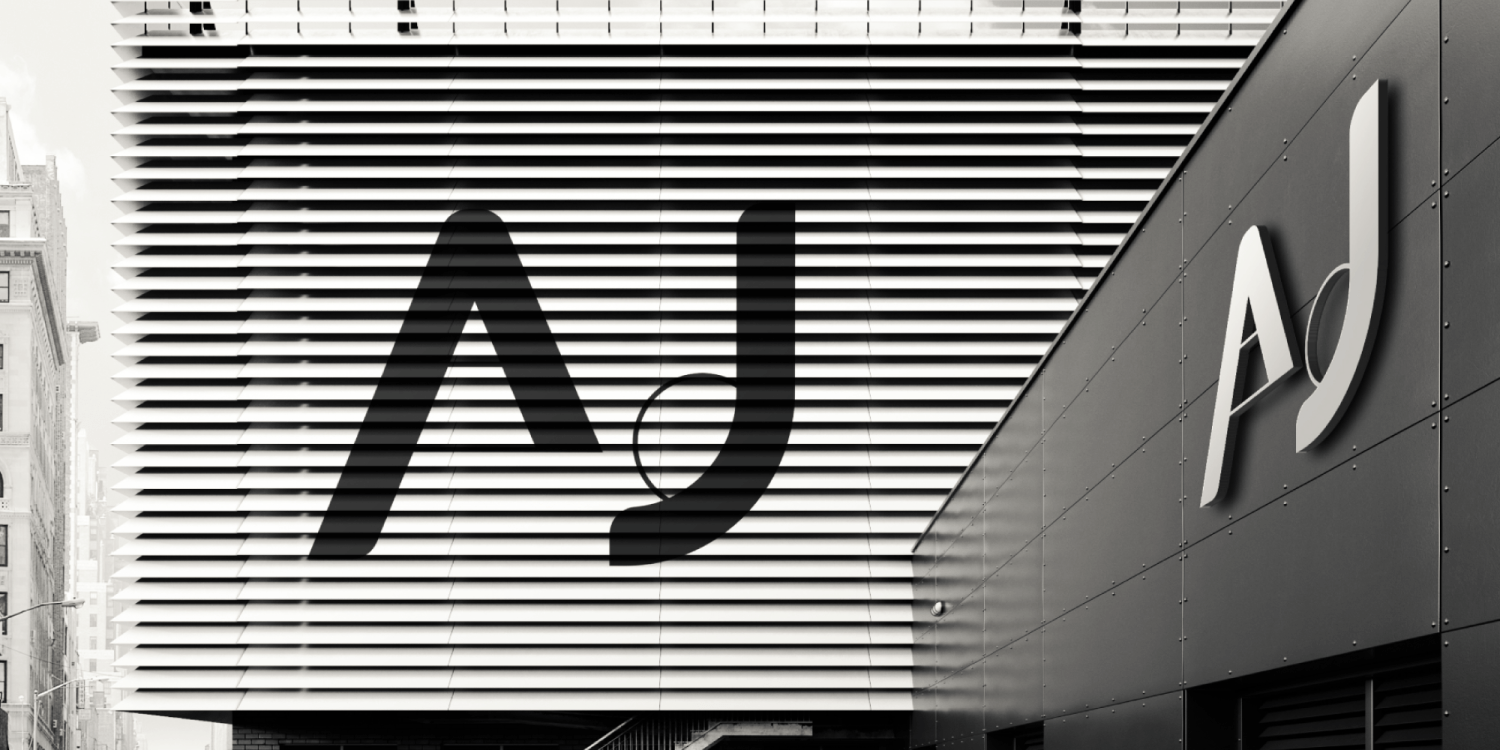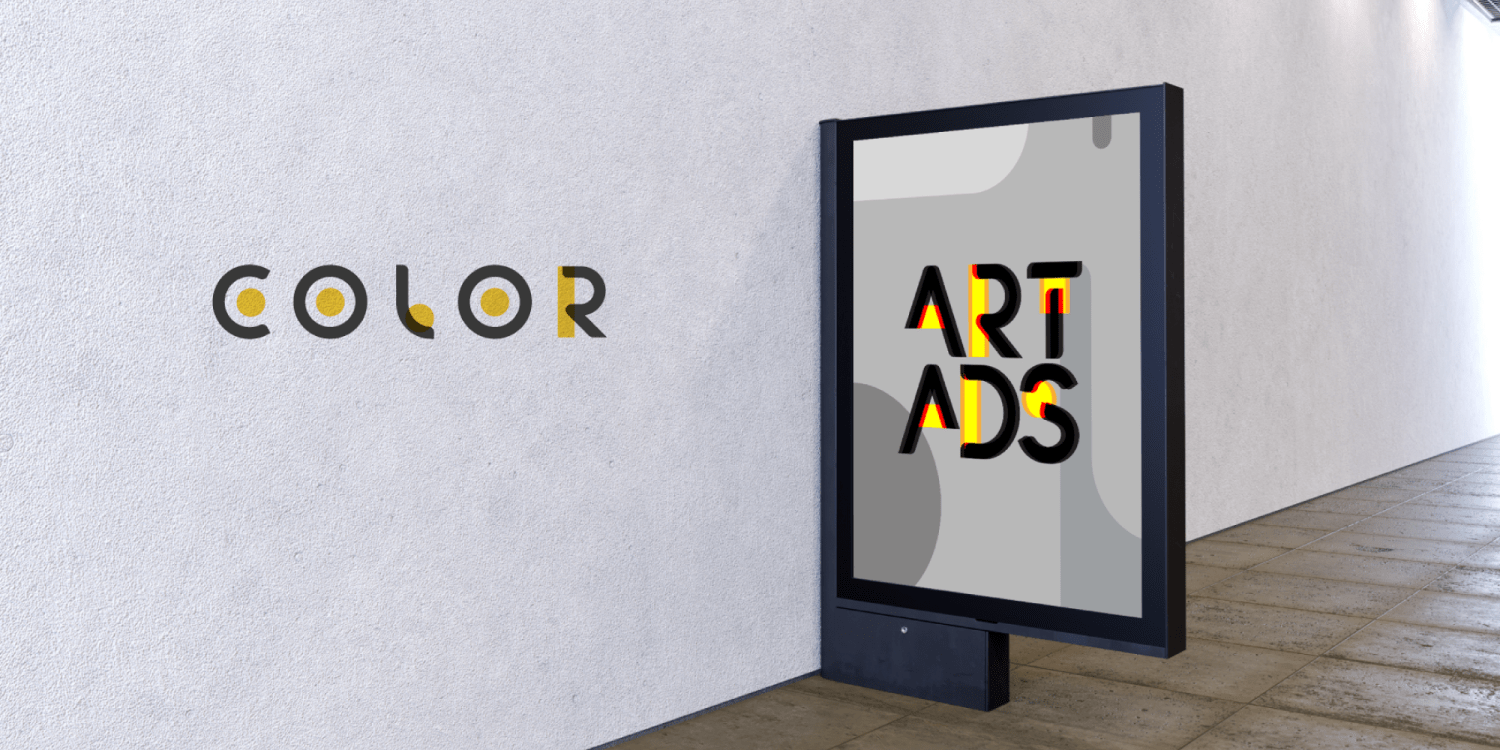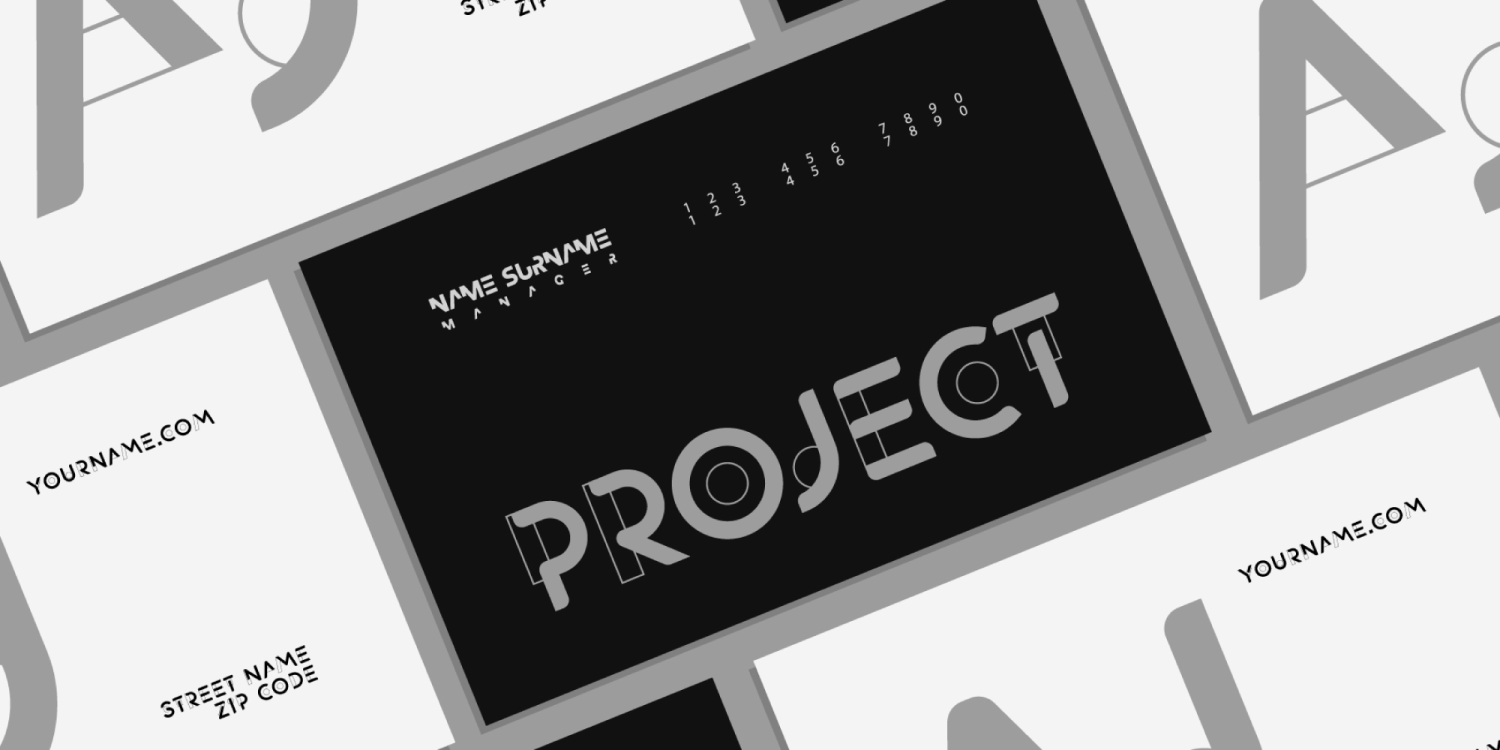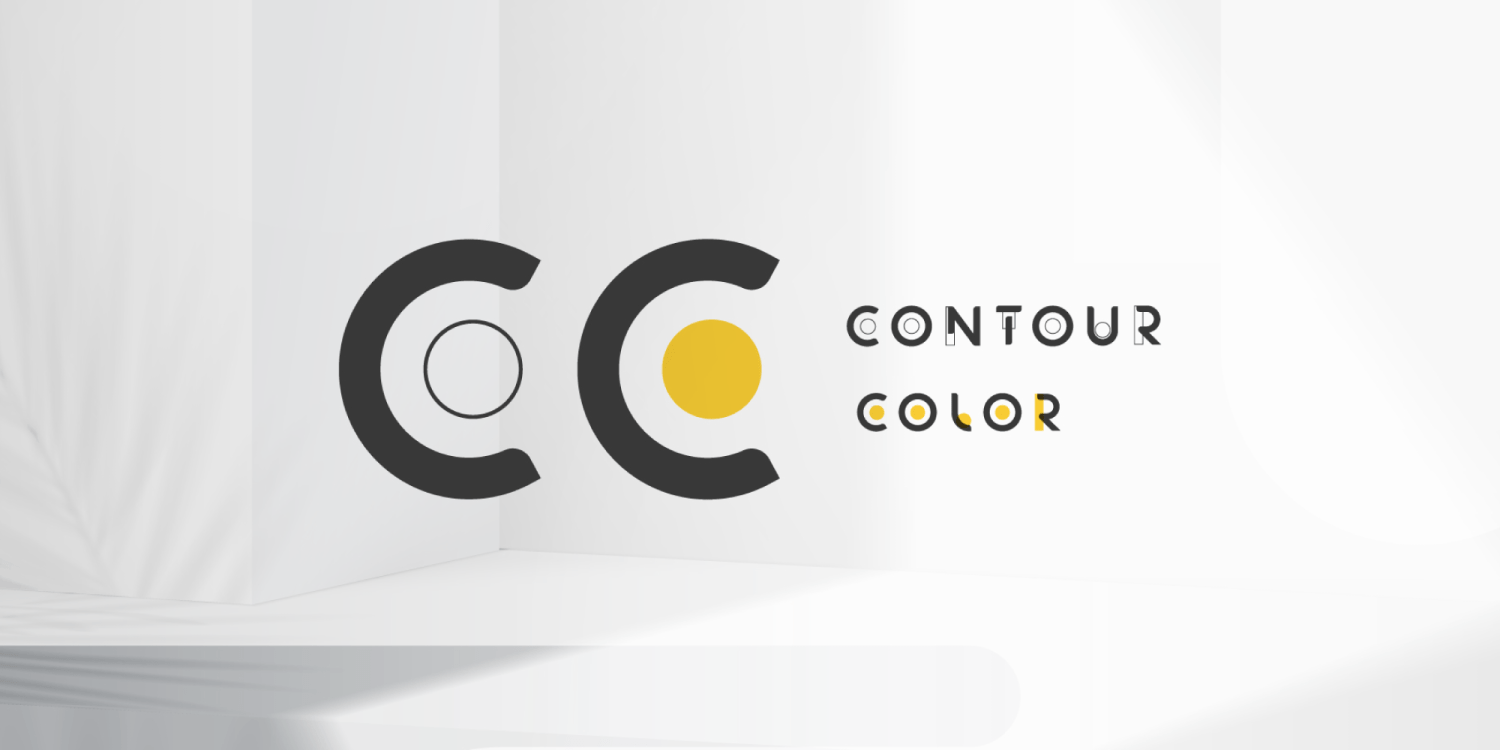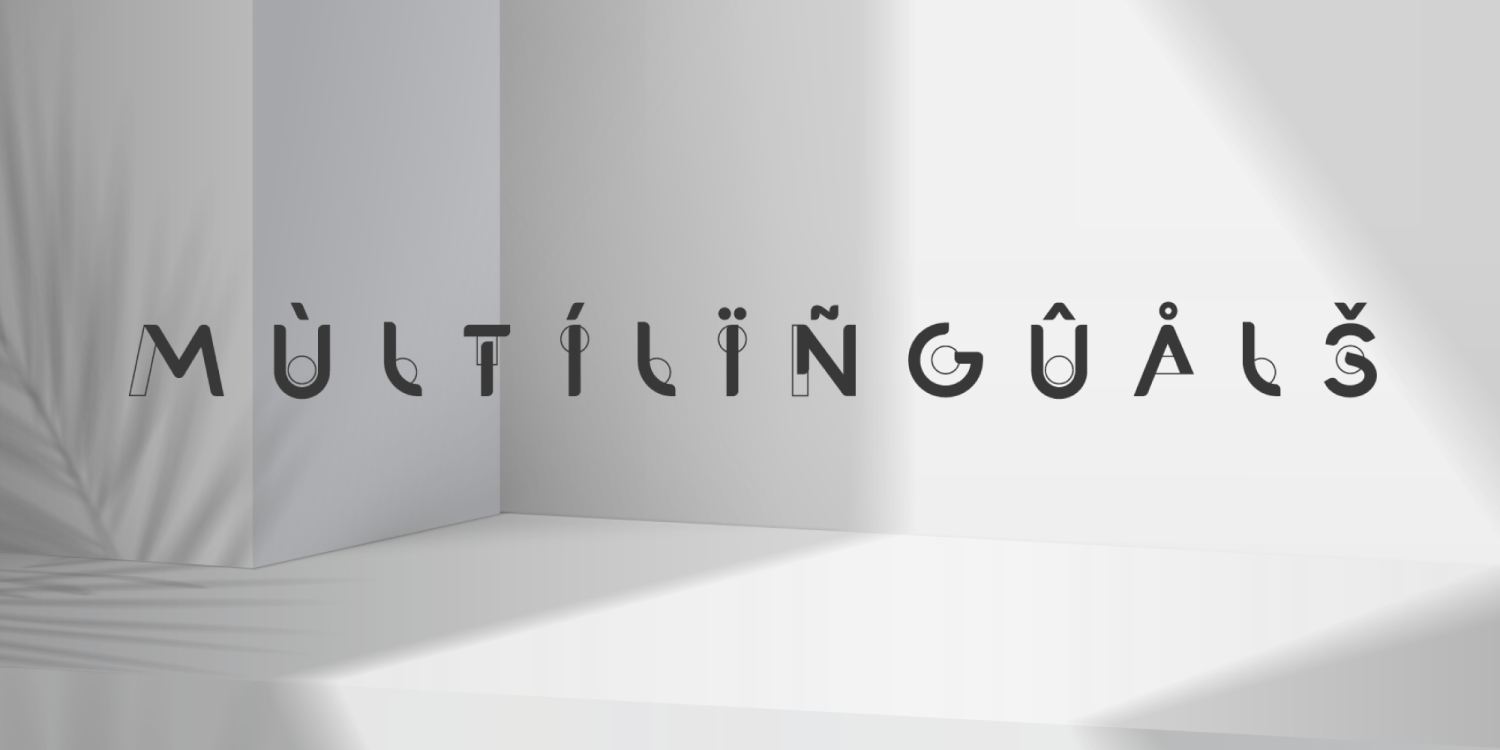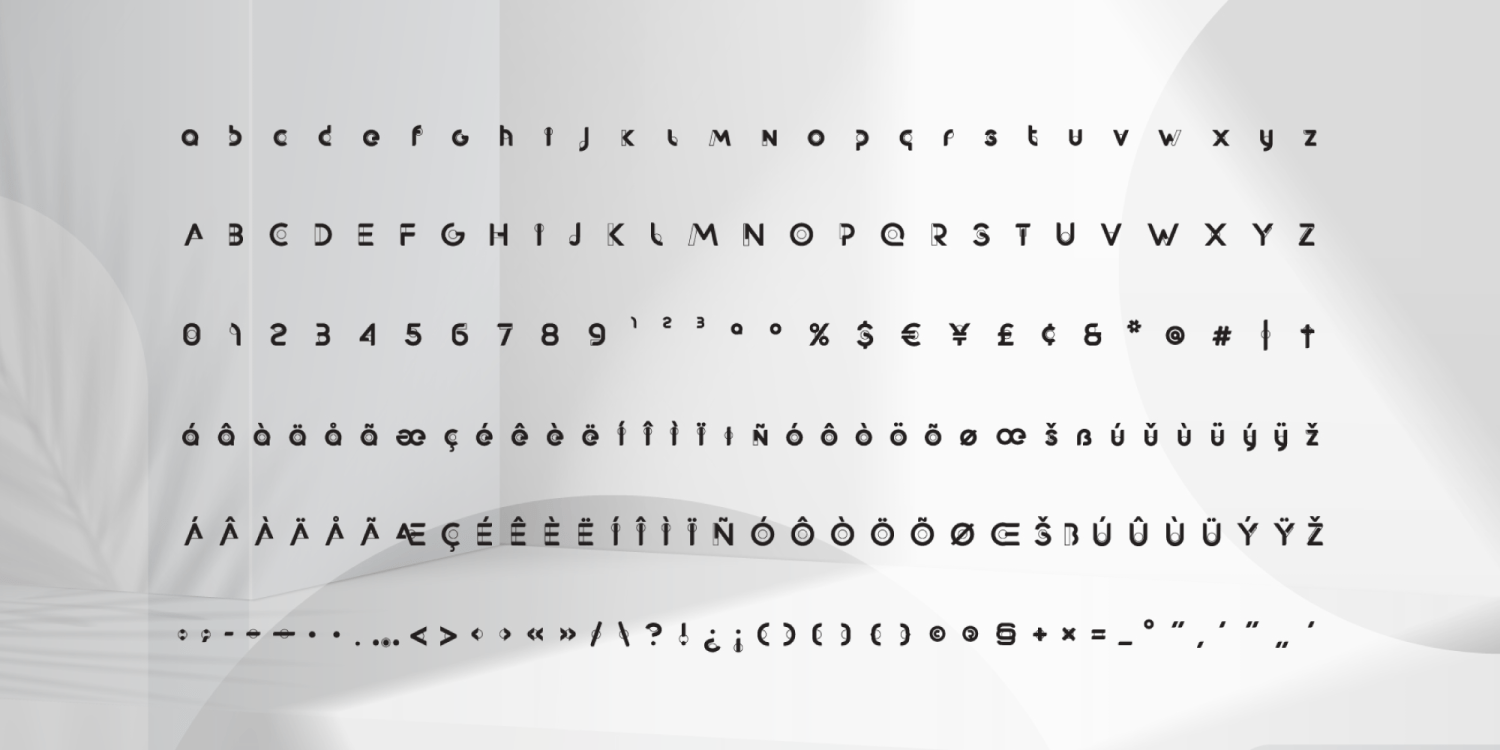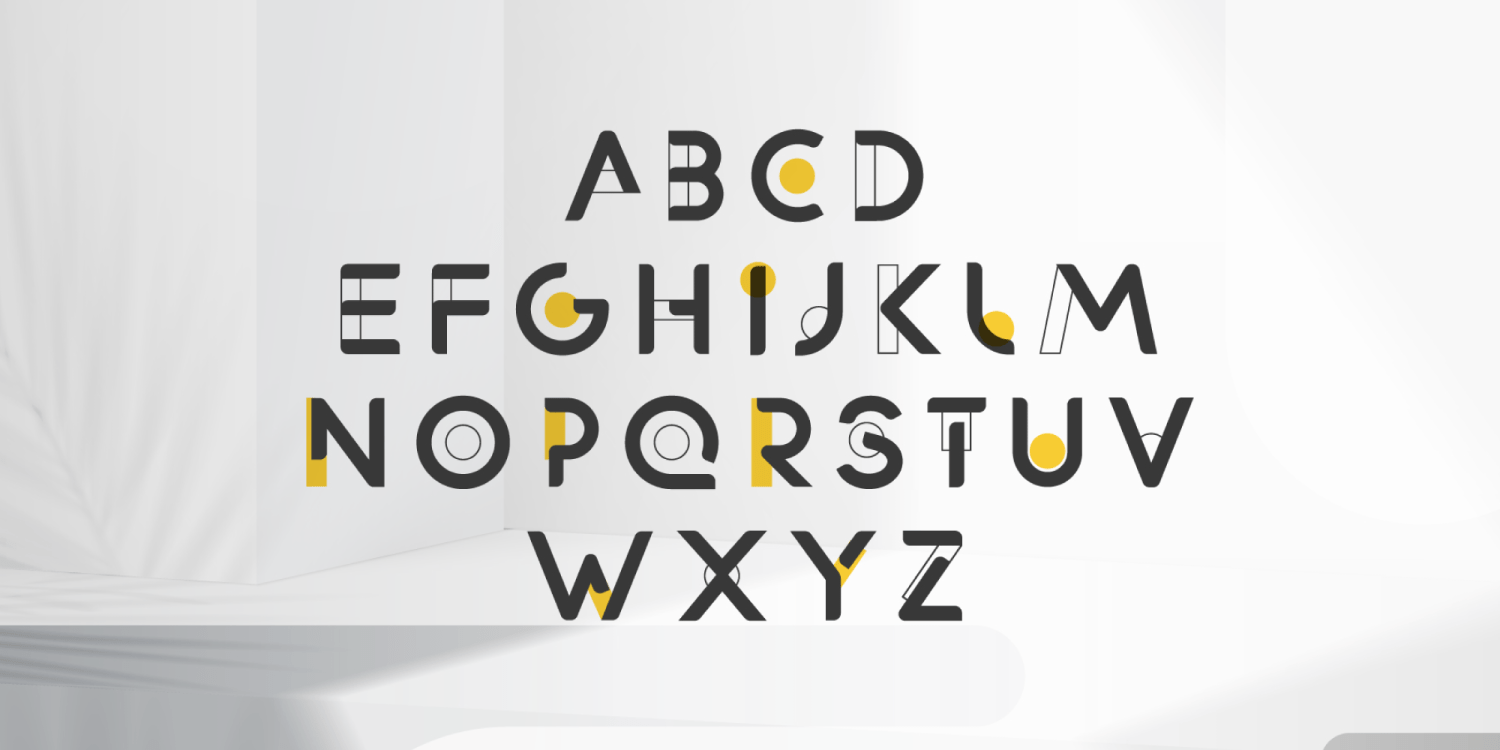
Contourism is an experimental geometric display font that combines solid letterforms, open contours and circular graphic details. Its contrasting shapes and layered construction create a distinctive contemporary appearance designed for expressive visual identities.
Available in coordinated Contour and Color styles, Contourism works especially well for logos, cultural branding, art exhibitions, gallery identities, architecture, fashion, posters, editorial titles, packaging, advertising and experimental typography. The styles can be used separately or combined to create layered lettering and custom color compositions.
The font includes uppercase and lowercase letters, numerals, punctuation, currency symbols and multilingual Latin support. Contourism is intended primarily for short headlines, wordmarks and display compositions where its unusual construction can become a central graphic element.